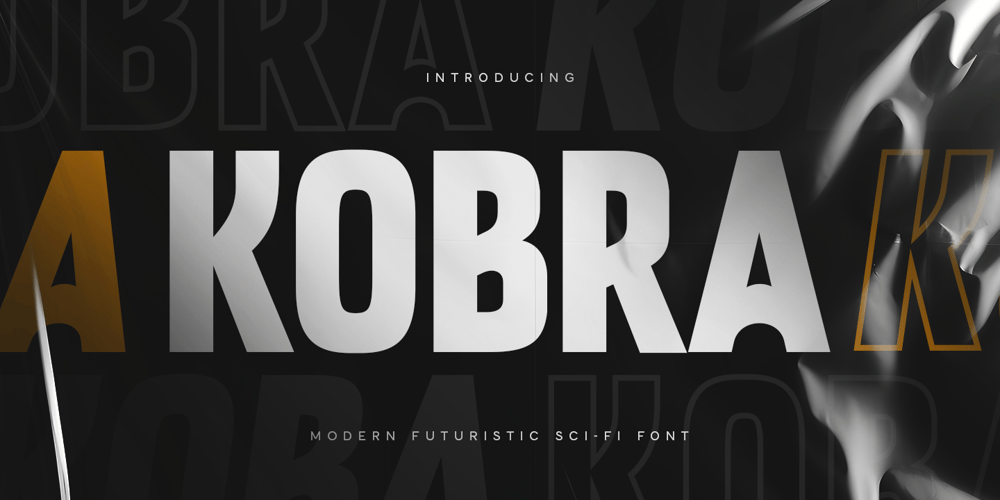
Kobra
Kobra font
Kobra Font Family was designed by Zamroni Hamzah and published by Sensatype Studio. Kobra contains 4 styles and family package options. Kobra is a Modern Brutalism Logo Font is a modern font with a minimalist, unique and have value for branding, font that you can combine to get any variations and unique shapes easily just in seconds with choose variation of them. It is a sans serif font with minimalist style that perfect for branding projects, logo, poster designs, social media posts, advertisements, product packaging, product designs, label, photography, watermark, invitation, stationery, and any projects, it makes with a high level of legibility.What’s Included: 4 variations for Kobra font Character set A-Z (Uppercase & Lowercase) Numerals & Punctuation Accented Characters (West Europe) Works on PC & Mac Wish you enjoy our font. ๐Ÿ™‚